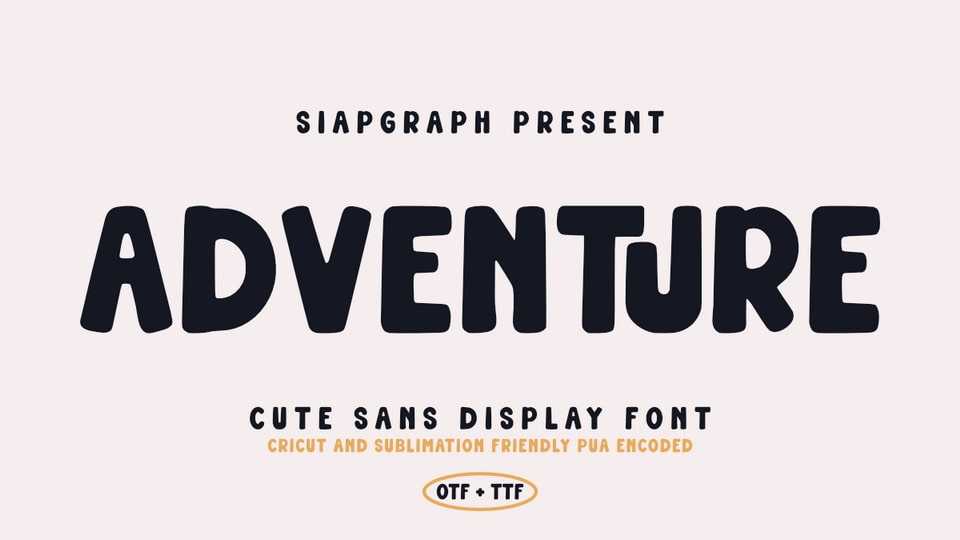
Download Adventure font, a cute and playful sans display typeface crafted for fun and creative projects. Its rounded, bouncy shapes make it perfect for adding personality and warmth to your designs.
Designer: SiapGraph